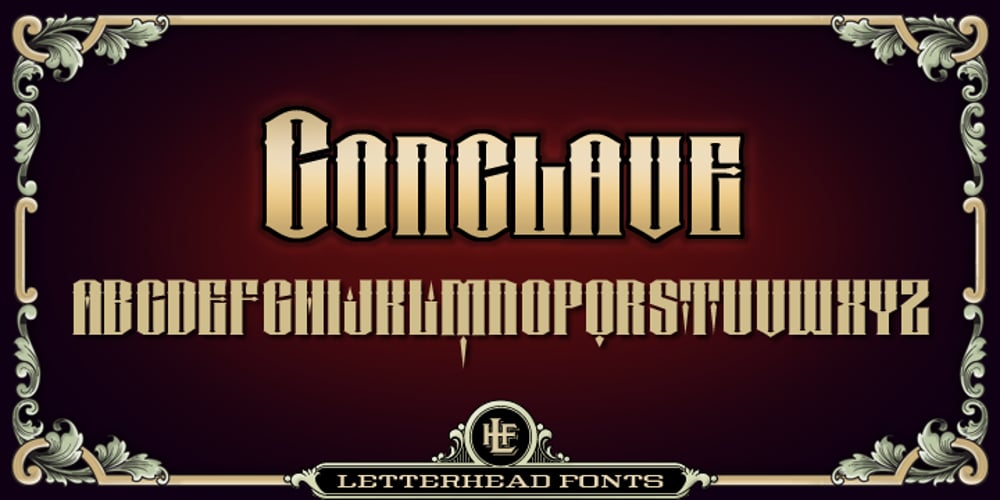
LHF Conclave Font Family was designed by Chuck Davis and published by Letterhead Fonts. LHF Conclave contains 4 styles and family package options. Conclave is a bold David Butler inspired typeface with a western flair.